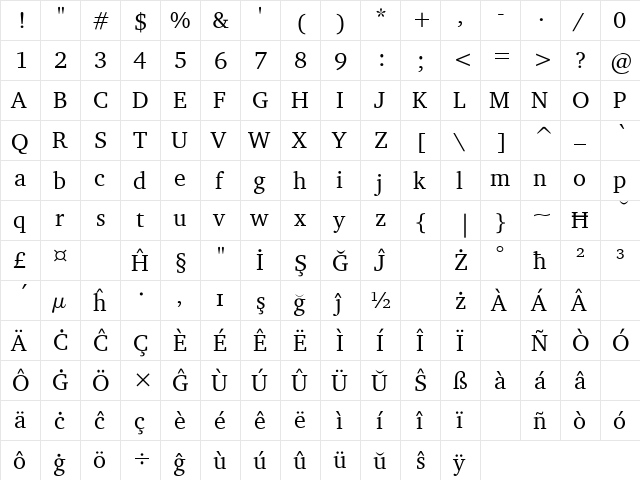
LeedsBit EuroSouth Normal
Design Context for LeedsBit EuroSouth Typeface
LeedsBit EuroSouth is a composed and adaptable typeface that performs quietly and consistently across a wide range of design contexts.